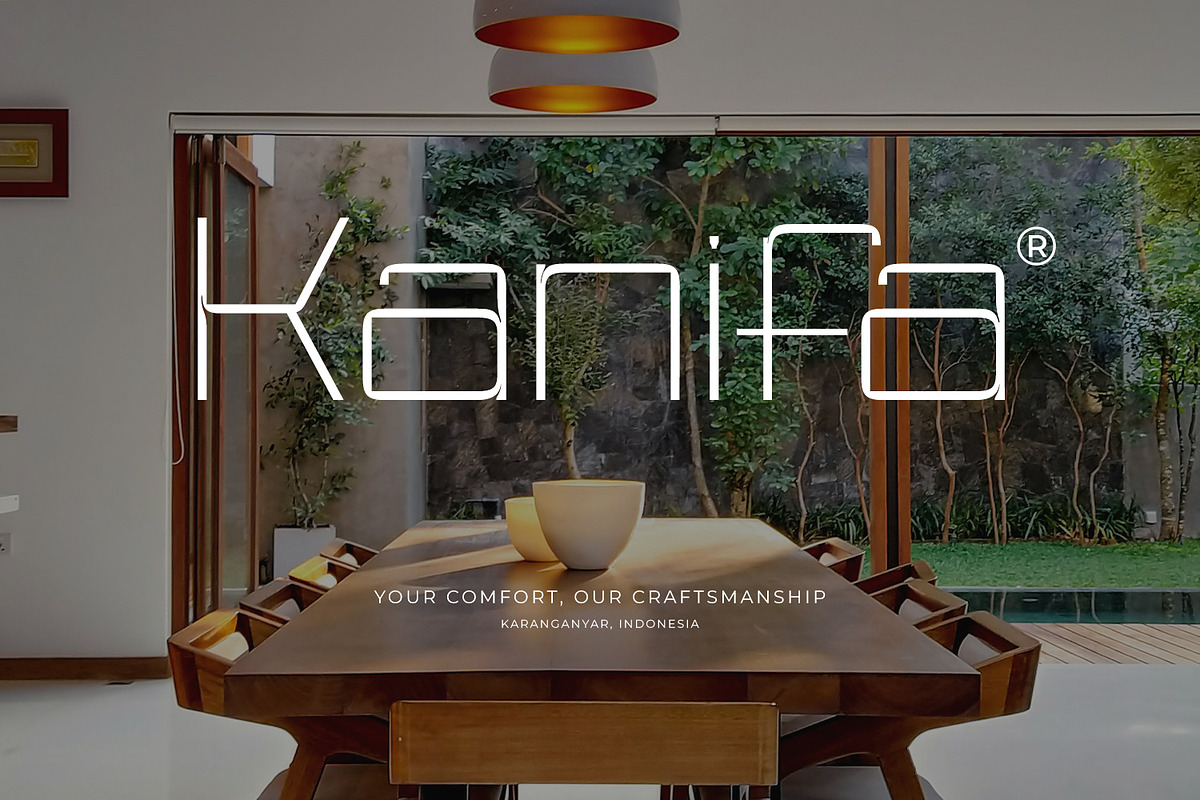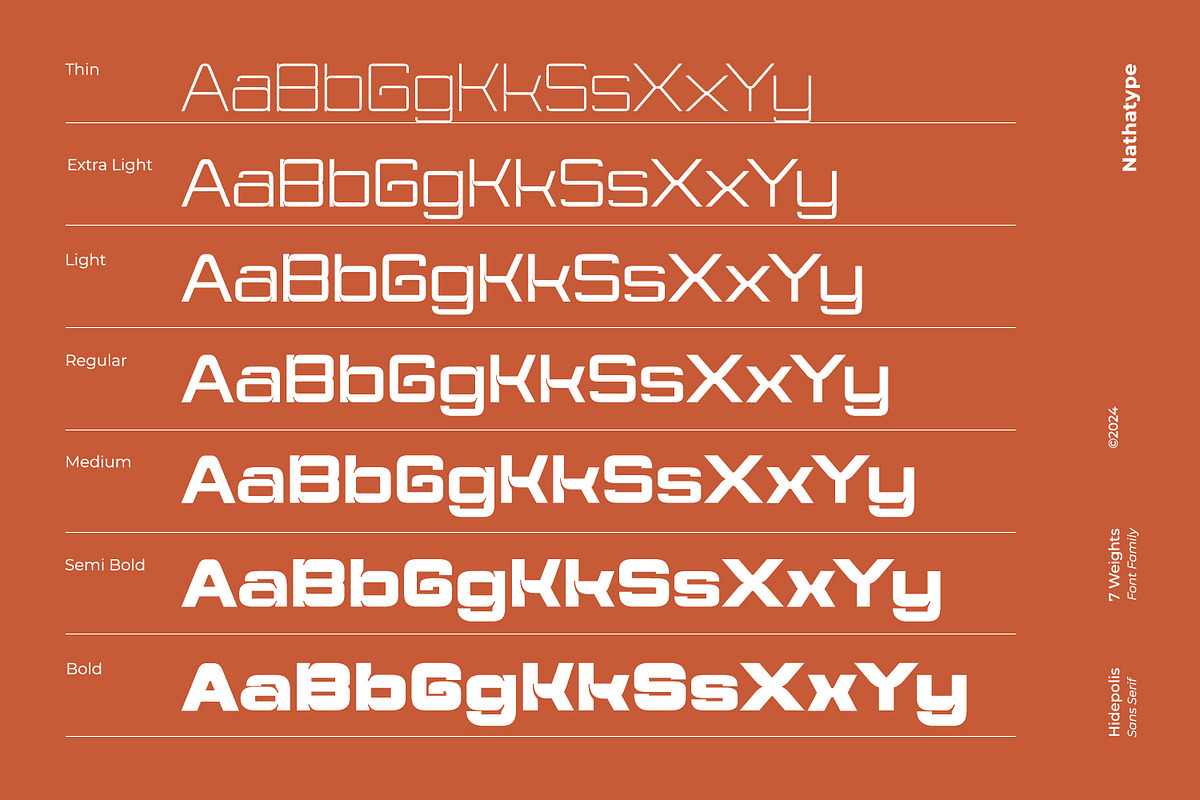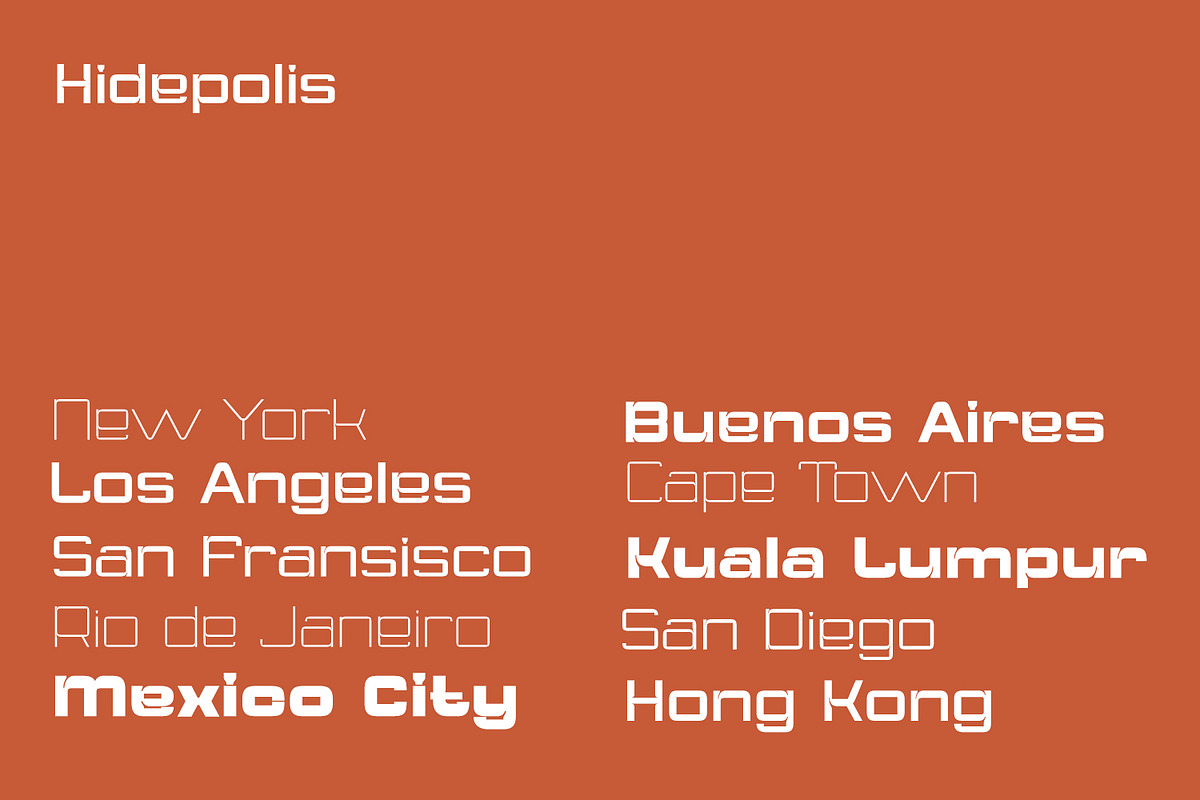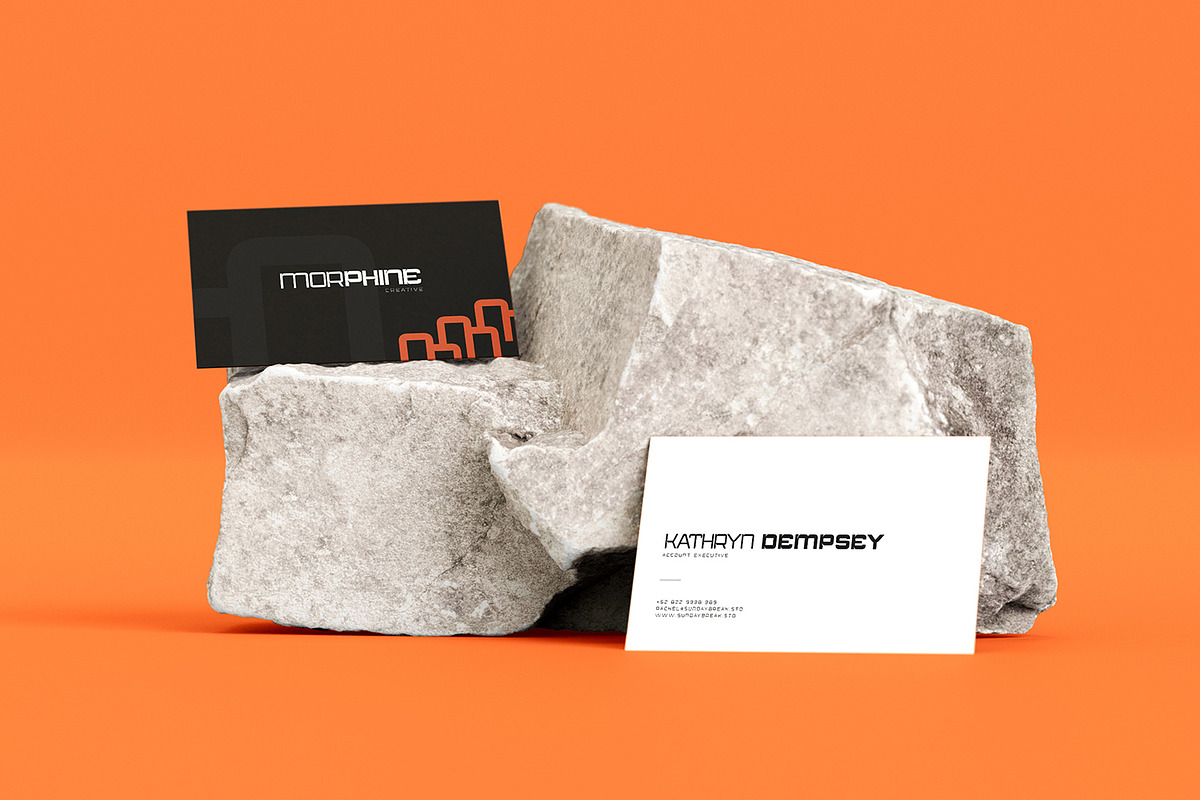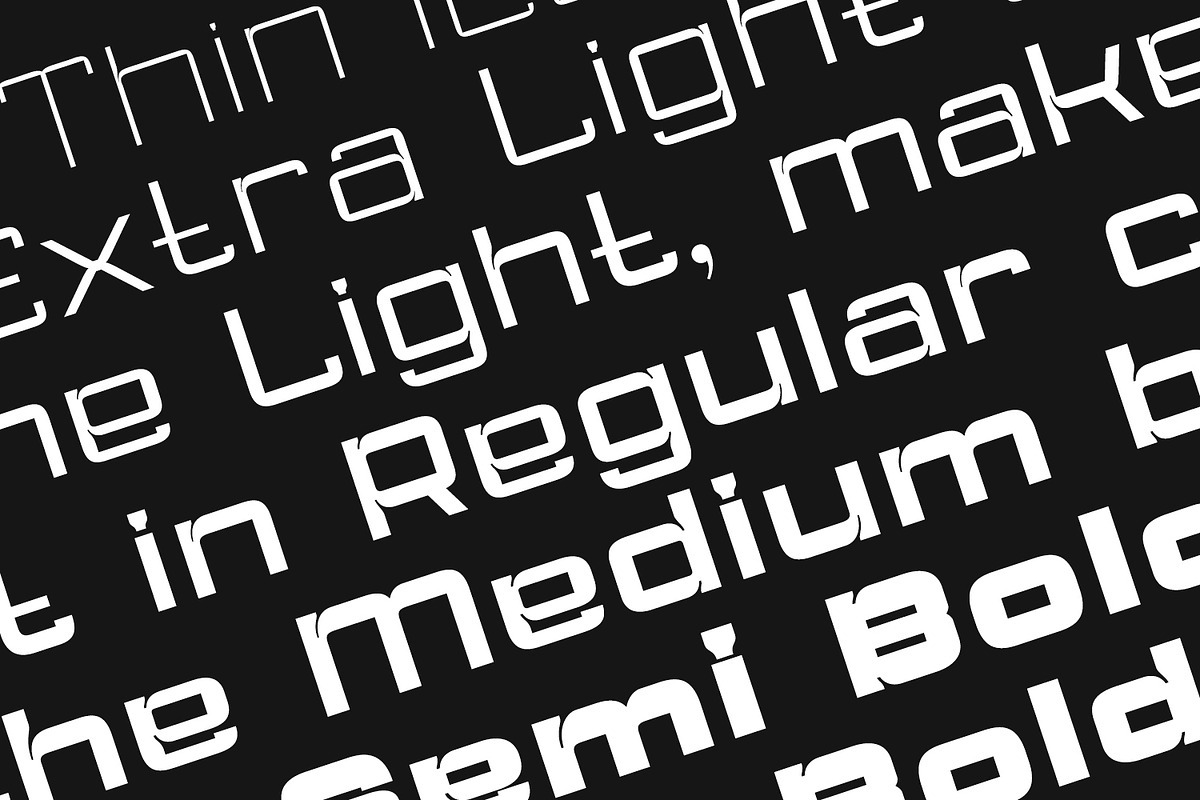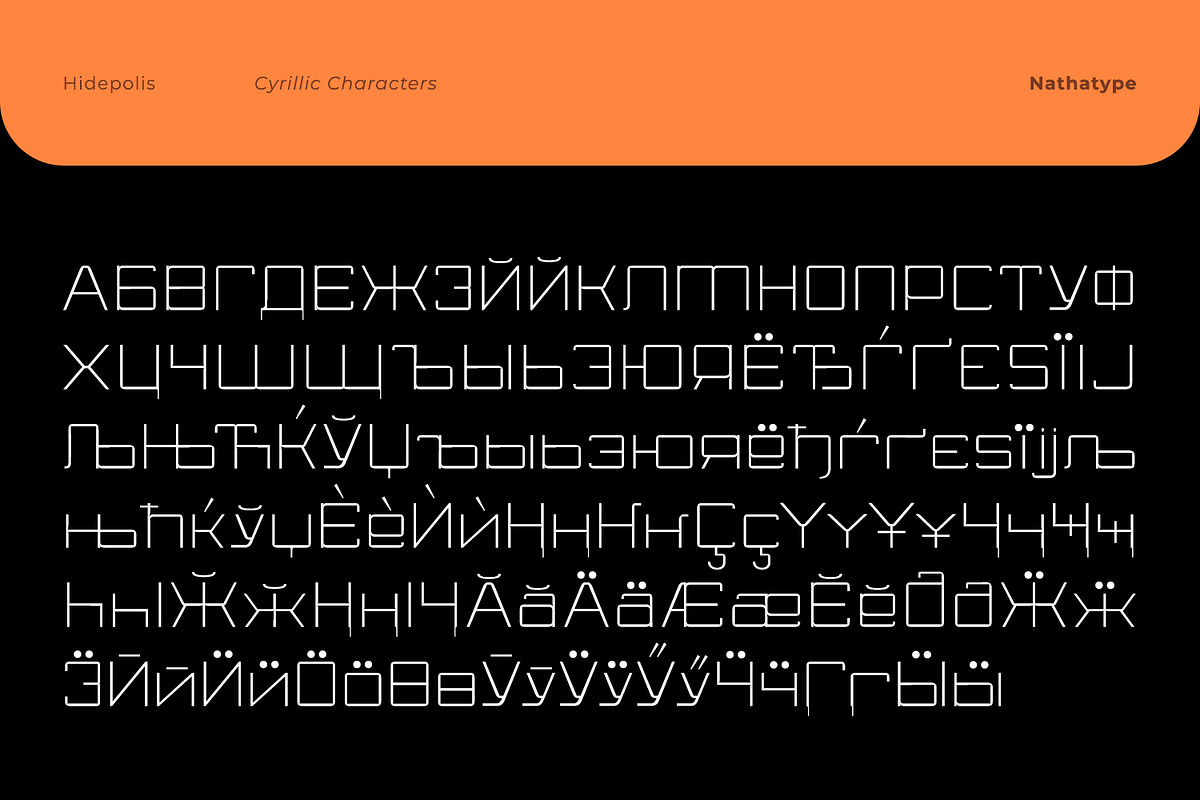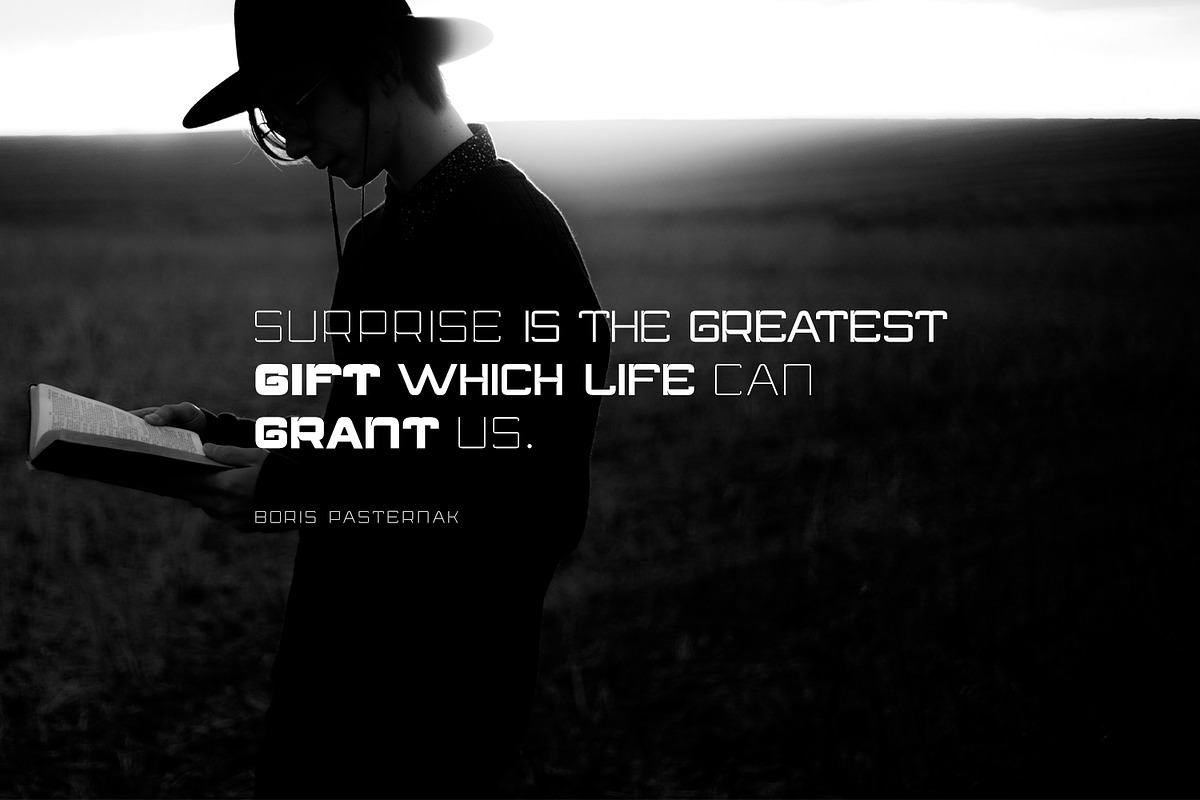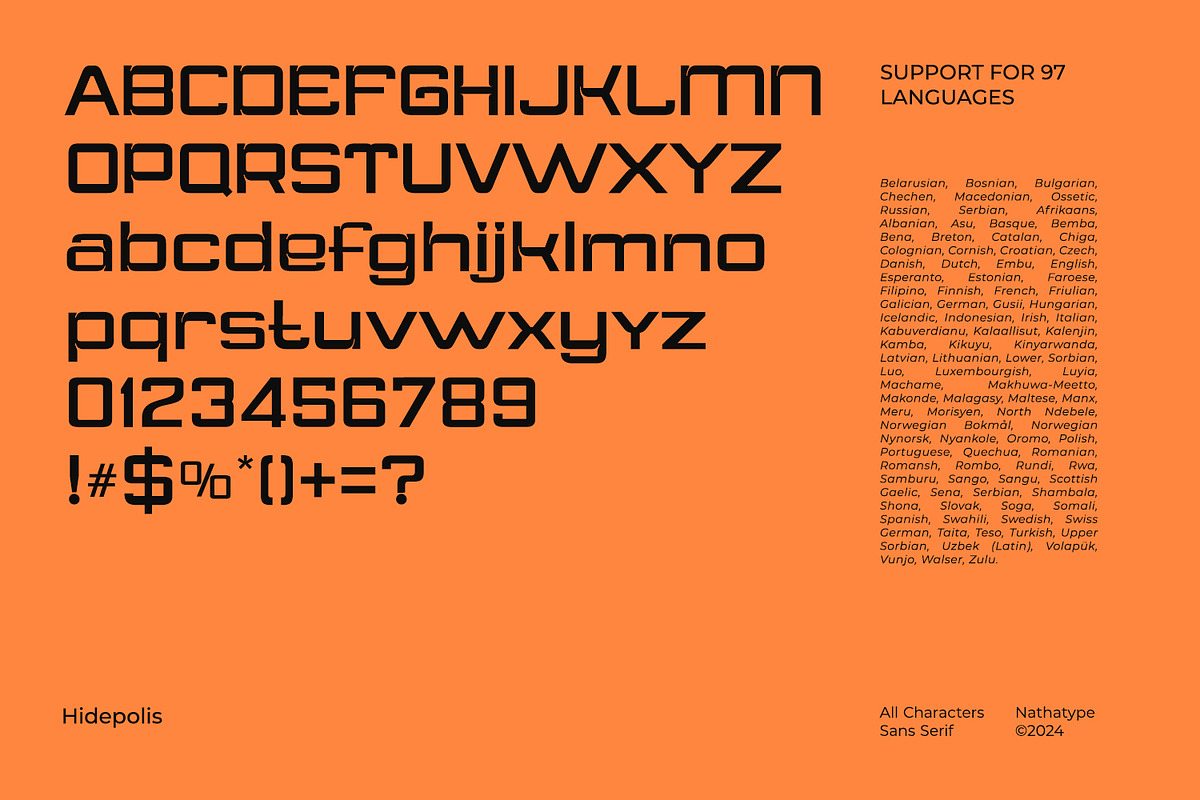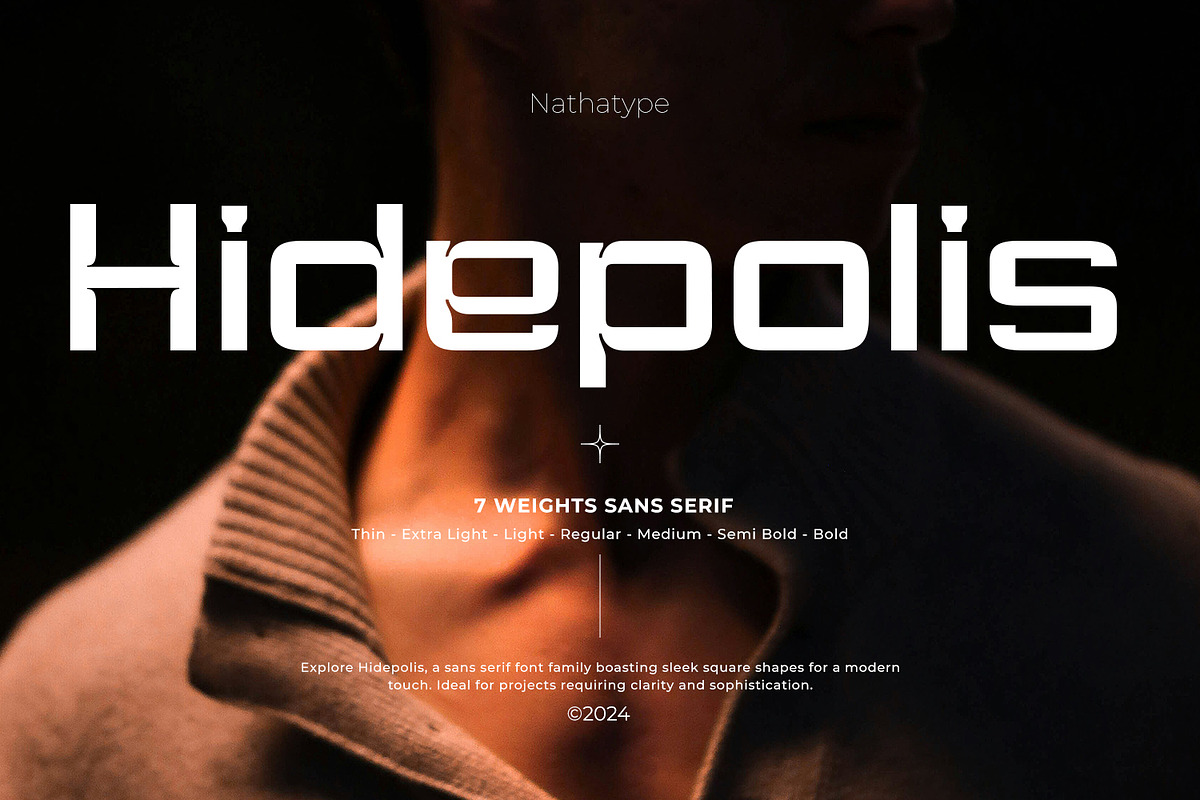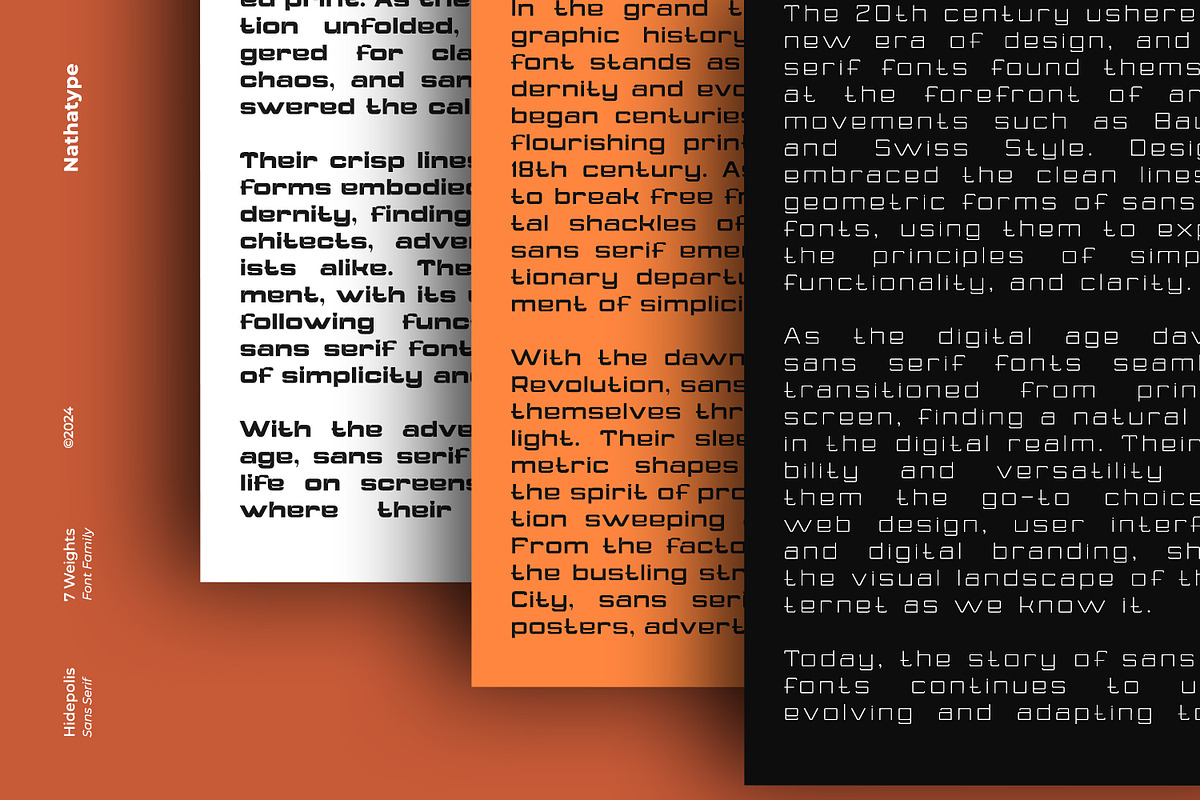
Hidepolis
Introducing Hidepolis, a sleek and versatile sans-serif font family. With seven different font weights to choose from, Hidepolis offers a wide range of options to suit your design needs. Each font weight in the Hidepolis family is made in box-shaped design that exudes a sense of strength and stability.
The modern vibes of the font make it perfect for projects that demand a clean and contemporary aesthetic. What sets Hidepolis apart is its versatility and adaptability. In addition, enjoy the features here.
Hidepolis fits in headlines, logos, posters, flyers, branding materials, print media, editorial layouts, and many more designs. Find out more ways to use this font by taking a look at the font preview.